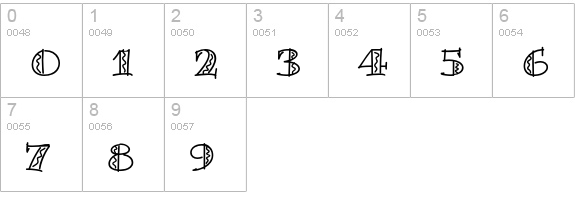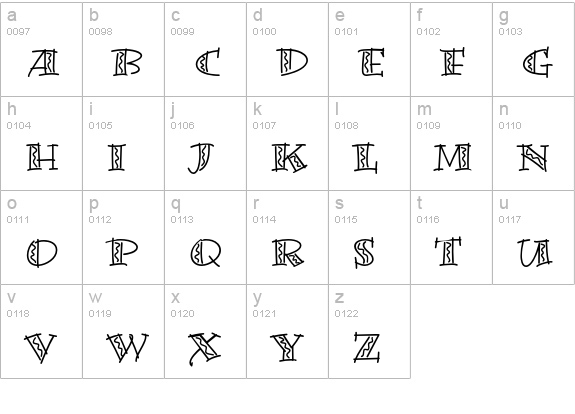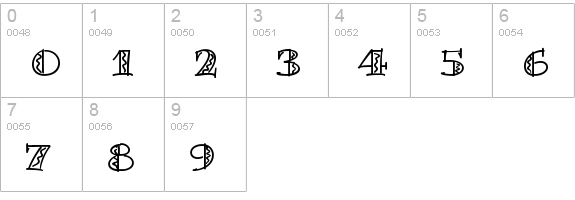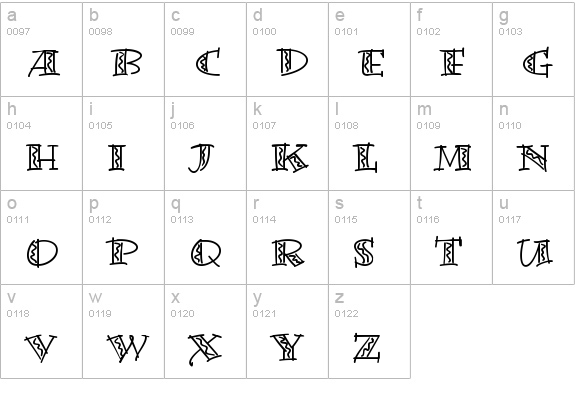
Bermuda LP Std Squiggle font is a whimsical and playful typeface that adds a unique touch to any design project. With its curly, hand-drawn appearance, this font exudes a sense of creativity and fun. Whether you're working on a poster, invitation, or branding project, Bermuda LP Std Squiggle font will surely make your text stand out. The best part is that Bermuda LP Std Squiggle font is completely free to download at FontsMarket.com. You can easily access this charming font and use it in your personal or commercial projects without any restrictions. So why wait? Add a touch of whimsy to your designs with Bermuda LP Std Squiggle font today!